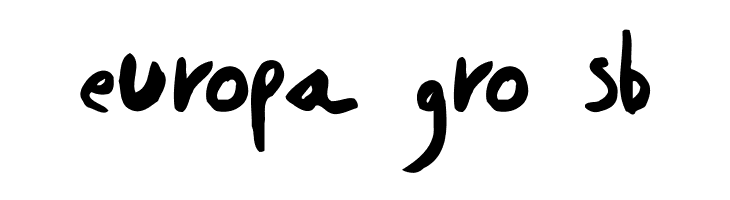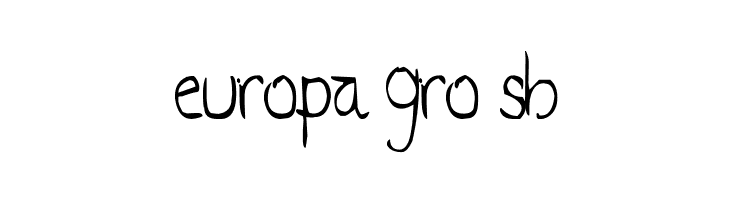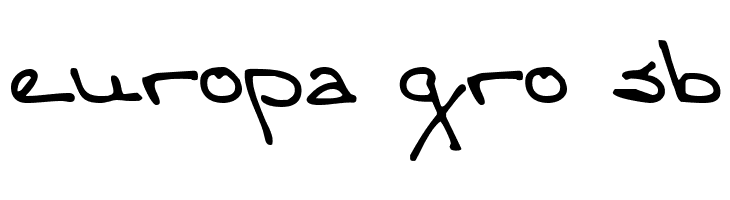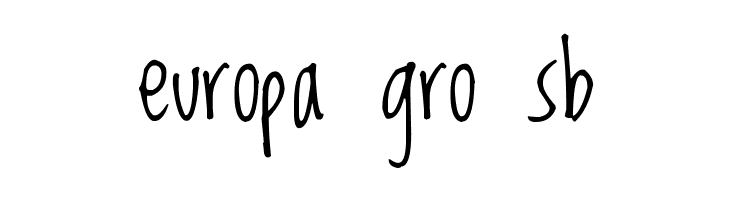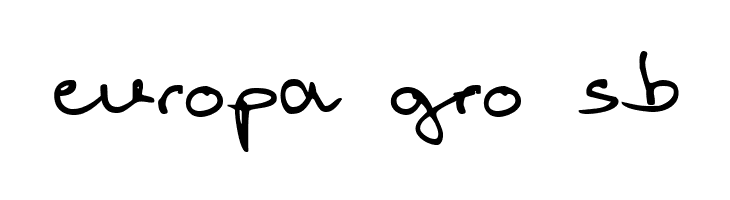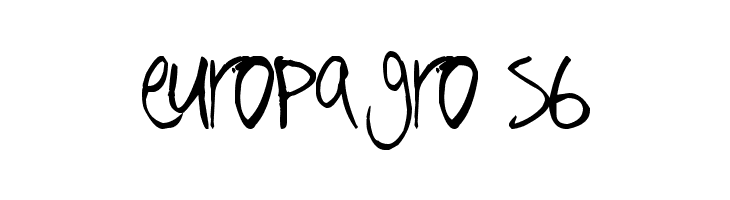
A bold, expressive handwritten font with a casual, personal style.
A casual, handwritten font with a playful and informal style.
A playful, hand-drawn font with irregular strokes and a dynamic, informal style.
A playful, handwritten font with a casual and informal style.
A casual, handwritten font with a playful and informal style.
A bold, hand-drawn font with a rustic, lively charm.